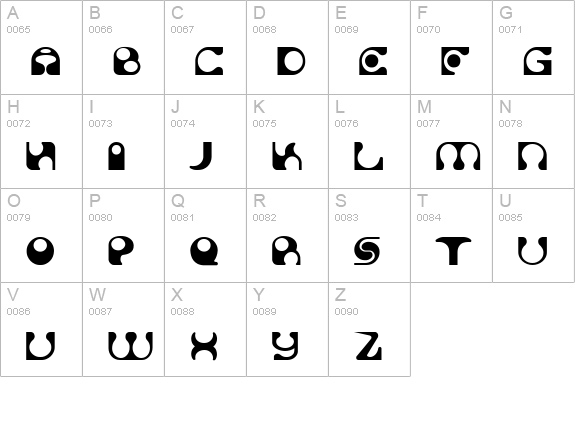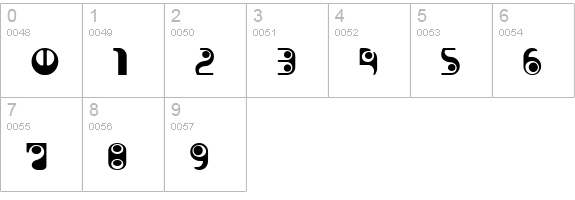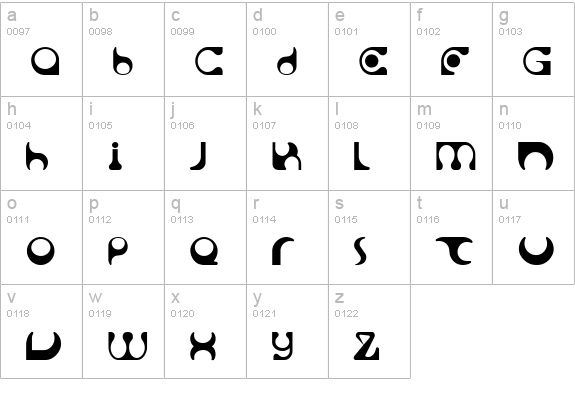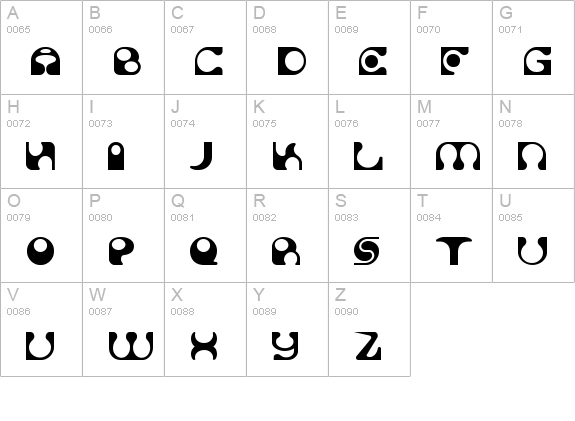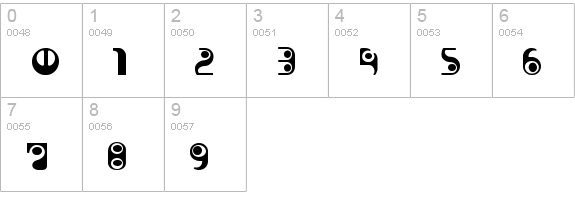
Introducing Solange, a stunning and versatile font that embodies elegance and modernity. With its sleek and sophisticated design, Solange is perfect for adding a touch of sophistication to any project. Whether you're creating a logo, branding materials, or a stylish website, this font is sure to make a lasting impression. Solange features clean lines and beautiful curves that effortlessly combine classic and contemporary elements. Its unique letterforms are meticulously crafted to ensure legibility and readability at any size. With a wide range of weights and styles, you have the freedom to choose the perfect variation to suit your needs. What sets Solange apart is not only its exceptional design but also its accessibility. This incredible font is available for free download exclusively at FontsMarket.com. Yes, you read that right - Solange can be yours without costing you a dime. Now you can bring your creative visions to life without breaking the bank. So, why wait? Discover the endless possibilities that Solange offers and elevate your designs to new heights. Download this captivating font today and unleash your creativity like never before. Remember, Solange is freely available at FontsMarket.com, so don't miss out on this incredible opportunity to enhance your projects with style and grace.